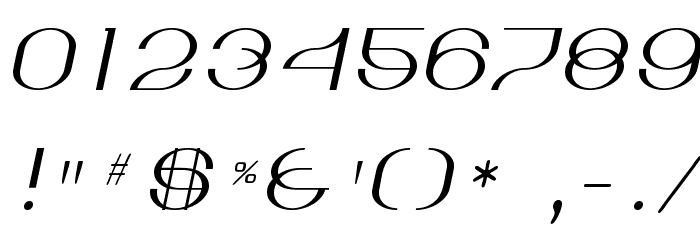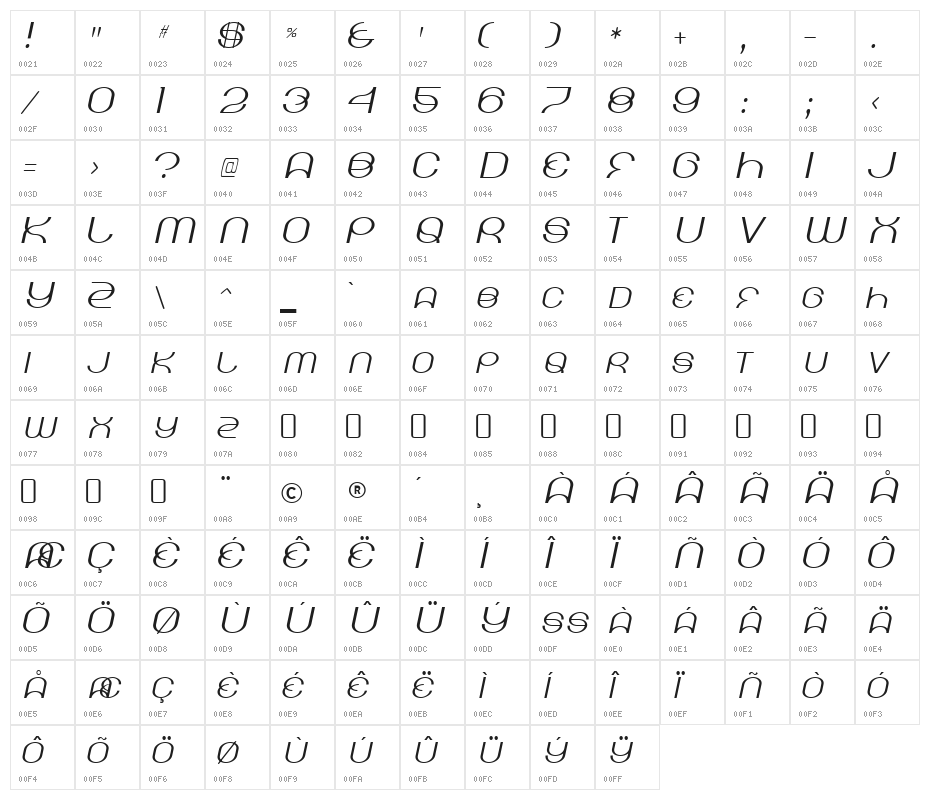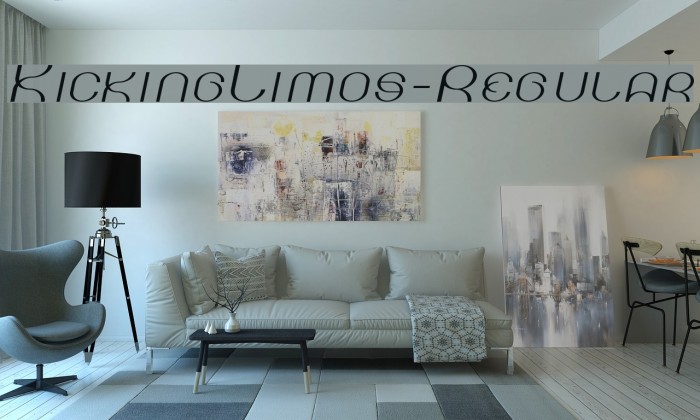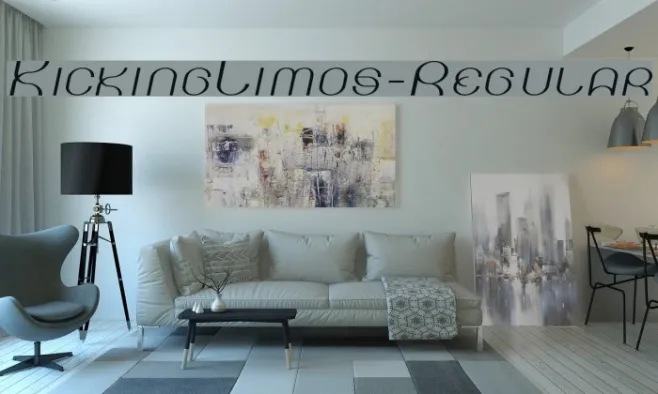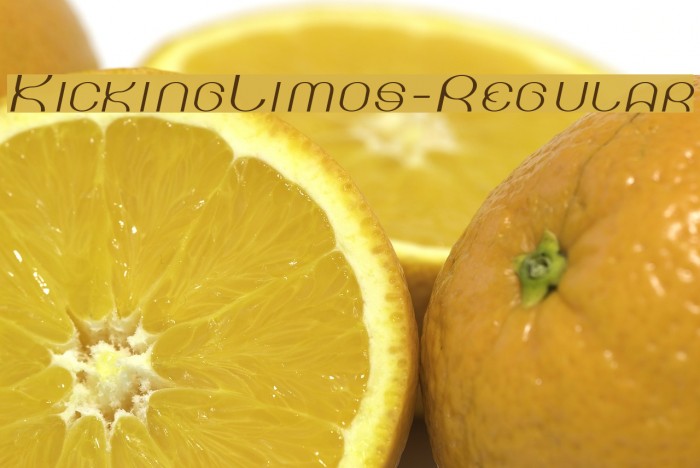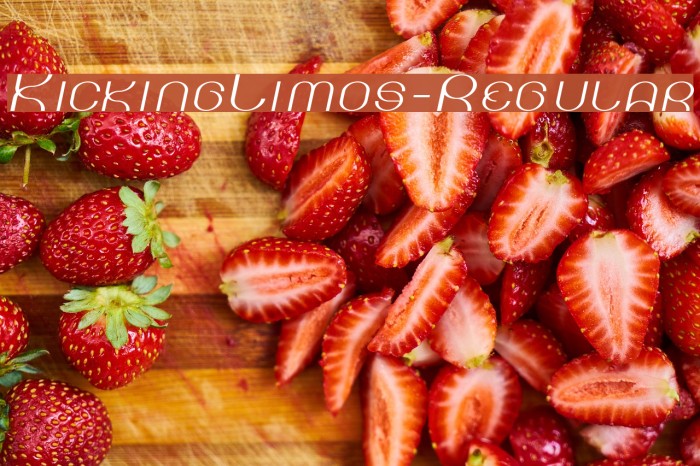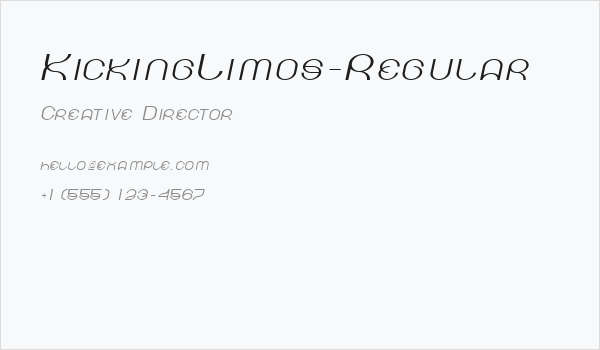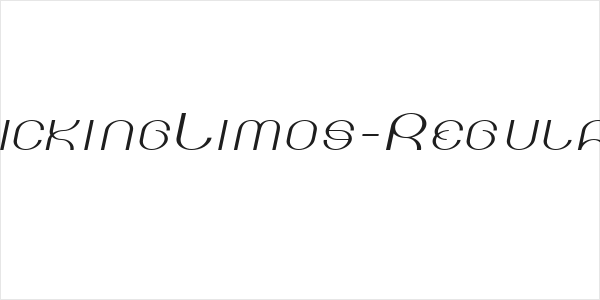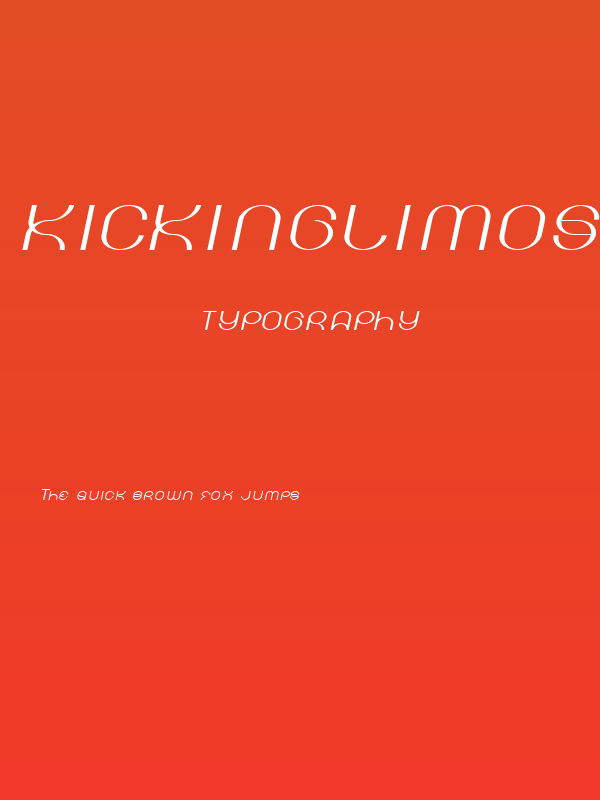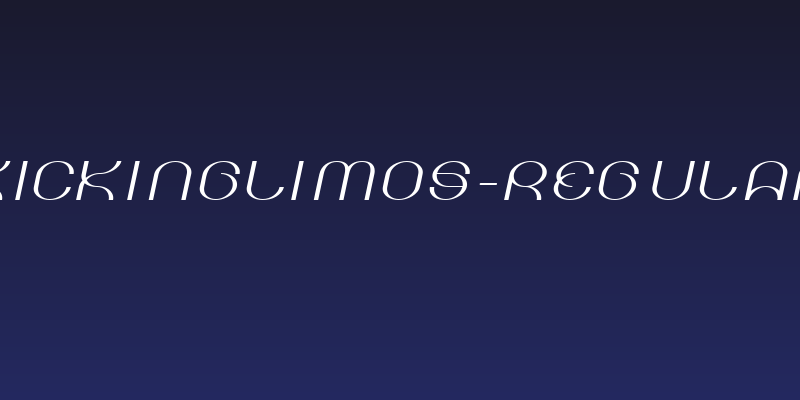
KickingLimos-Regular Font
KickingLimos-Regular Description
This font features a unique and modern design with a distinct slant, giving it an italicized appearance. The characters are crafted with smooth curves and a sleek, futuristic style. The uppercase and lowercase letters maintain a consistent flow, while the numerals and special characters complement the overall aesthetic. The font's design is both innovative and stylish, making it suitable for contemporary projects that require a touch of elegance and sophistication.
| Proposed Projects | Ideal for branding, advertising, and editorial design projects that require a modern and stylish touch. |